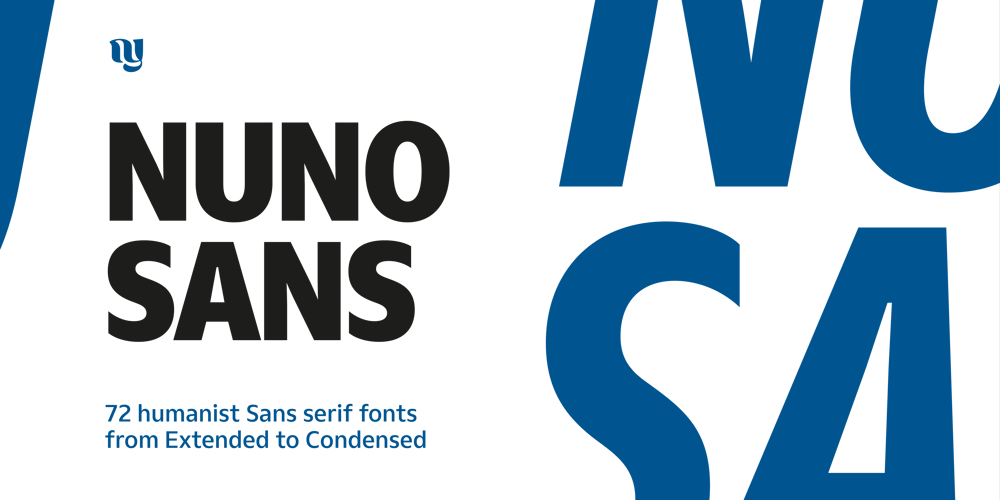
Nuno Font Family was designed by Parin Rungpattarathakun and published by Type.p. Nuno contains 72 styles and family package options. Nuno Sans is an elegant sans-serif typeface with a humanist touch. It offers 72 styles with 4 widths, ranging from Extended to Condensed, including 18 styles of both uprights and italics. This versatile font supports Western, Central, and Eastern European languages, as well as Vietnamese, ensuring widespread accessibility to readers. Nuno Sans excels in various applications and situations, from bold headlines to easy-to-read text, making it suitable for web, print, and corporate identity projects. Nuno Sans is a contemporary and diverse typeface, perfect for any design project.